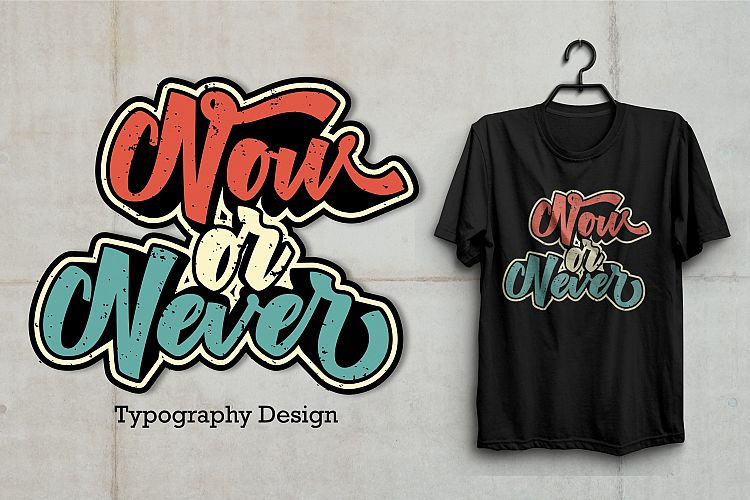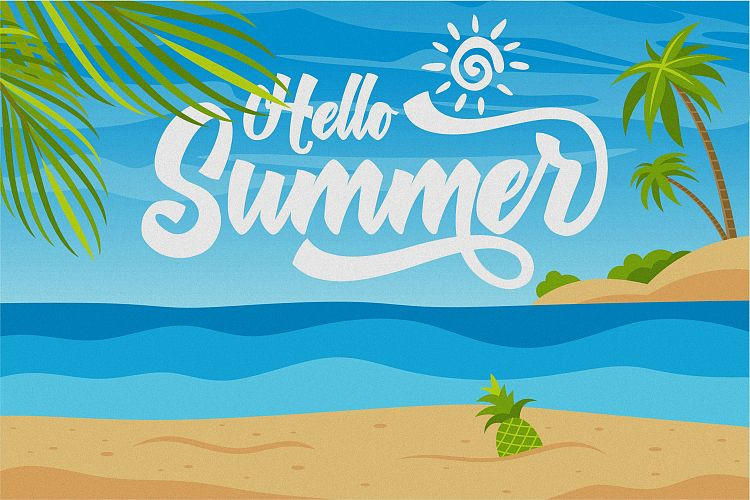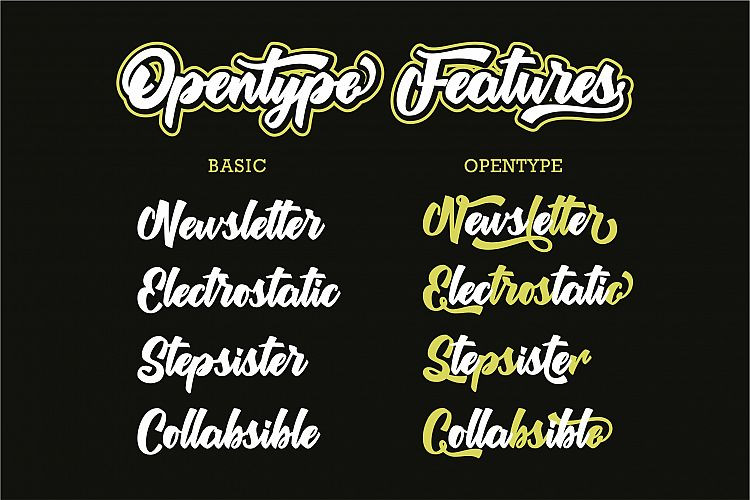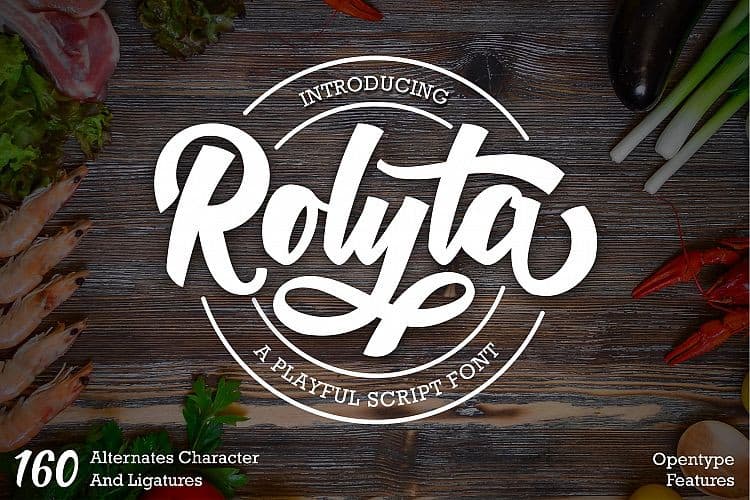
Rolyta Bold Script Font
This is a playful bold script font. It’s a hand-lettered typeface, hence the slight imperfections and uneven baseline. It has a fun and playful feel to it, perfect for “cute” purposes. Introducing Rolyta Font. It’s designed and shared by Slametype. Rolyta Playful Bold Script Font is a Bold script font with lots of alternative uppercase and lowercase glyphs plus some ligature. Rolyta Script is a good choice for many different project such as logos & branding, invitation, stationery, wedding designs, social media posts, advertisements, product packaging, product designs, label, photography, watermark, special events or anything.